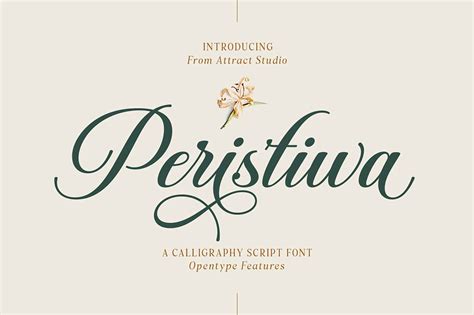
Unlock Your Creativity: Find the Perfect Font for Your Project
Are you struggling to find the perfect font for your project? Are you looking for ways to unlock your creativity? If so, this article is for you!
Did you know that the font you choose can impact the success of your project? It’s true! A font can set the tone of your work and influence how your readers feel about your message.
So, how do you find the perfect font for your project? Here’s the good news: you’re about to find out! This article will provide you with tips and tricks for unlocking your creativity and finding the perfect font for your project.
Ready to get started? Let’s dive in! Read on to learn how you can unlock your creativity and find the perfect font for your project. We guarantee you won’t be disappointed.
Creative Fonts
Creative fonts are the perfect way to make your project stand out and capture your audience's attention. There are a wide variety of creative fonts available, from script and calligraphy to decorative, stencil, and serif fonts. Depending on your project and the desired effect, you can choose the perfect font to make your project or message stand out.
Script Fonts
Script fonts can be used to create a sophisticated and elegant look. Script fonts are usually more decorative and ornate than other font types, and are perfect for projects such as invitations, cards, logos, and more. The most popular script fonts are Copperplate, Edwardian Script, and Lucida Script. These fonts are a great way to create a formal, yet creative look for your project.
Calligraphy Fonts
Calligraphy fonts are perfect for projects such as wedding invitations, thank you cards, and other formal documents. Calligraphy fonts are more ornate and decorative than other fonts, and they are often used to create a unique, elegant look. The most popular calligraphy fonts include Bickham Script, Goudy Oldstyle, and Monotype Corsiva.
Decorative Fonts
Decorative fonts are perfect for projects such as posters, flyers, and other creative projects. Decorative fonts are often more whimsical and fun than other font types, and can be used to create a unique and eye-catching look. The most popular decorative fonts are Papyrus, Chalkboard, and Lobster.
Stencil Fonts
Stencil fonts are perfect for creating a bold and striking look. Stencil fonts are often used in projects such as posters, flyers, and other creative projects. The most popular stencil fonts are Bank Gothic, Aachen, and Stencil. These fonts are a great way to create a unique and memorable look for your project.
Serif Fonts
Serif fonts are perfect for creating a classic, timeless look. Serif fonts are often used for projects such as books, magazines, and other printed materials. The most popular serif fonts are Times New Roman, Garamond, and Georgia. These fonts are a great way to create a timeless and classic look for your project.
Finding the Perfect Font
Finding the perfect font for your project can be a daunting task. There are so many fonts available, it can be hard to choose the right one. To find the perfect font, take some time to research the different font types and look at examples of how they are used. This will help you get a better understanding of what type of font will work best for your project.
Using Fonts in Your Projects
Once you have chosen the perfect font for your project, it is important to use it correctly. Make sure you choose the correct font size and line spacing for your project. You should also pay attention to kerning, which is the space between letters. Kerning is an important part of creating a professional and aesthetically pleasing look.
Finding Free Fonts
There are a lot of great free fonts available online. You can find a variety of fonts, from script and calligraphy to decorative and serif fonts. Many of these fonts are free for personal use, so you can use them in your projects without having to pay for them. However, it is important to check the license of any font before you use it in your project.
Purchasing Fonts
If you are looking for a more professional look for your project, you may want to purchase a font. There are a variety of fonts available for purchase online, and you can find fonts in a variety of styles, from script and calligraphy to decorative and serif fonts. Purchasing a font is a great way to get a higher quality look for your project.
Unlock Your Creativity
Finding the perfect font for your project is a great way to unlock your creativity and make your project stand out. With so many fonts available, you can choose the perfect font to make your project or message stand out. Whether you choose a script or calligraphy font, a decorative font, a stencil font, or a serif font, the right font can make a world of difference in your project.
Creativity is a powerful tool that can help you reach your highest potential. By exploring and experimenting with fonts, you can find the perfect font to express yourself and bring your project to life.
Unlock your creativity and find the perfect font for your project today!